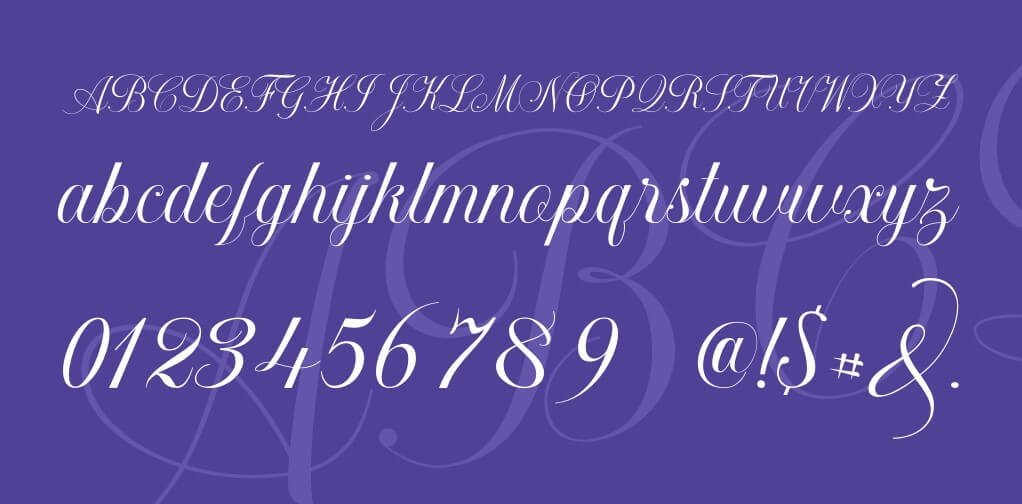
Khatija Calligraphy Font
Khatija Calligraphy Font layout is appropriate for all kinds of works together with posters, article titles, or any other paintings related to movie production. This font is a great idea for logo,banners posters and other crafts.
Its ambitious style stea calligraphy font for any campaign you are probably hosting. With its font, bouncy characters, and hard shapes, this hand-drawn brush font is designed to feel private.
Style Of Khatija Calligraphy Font